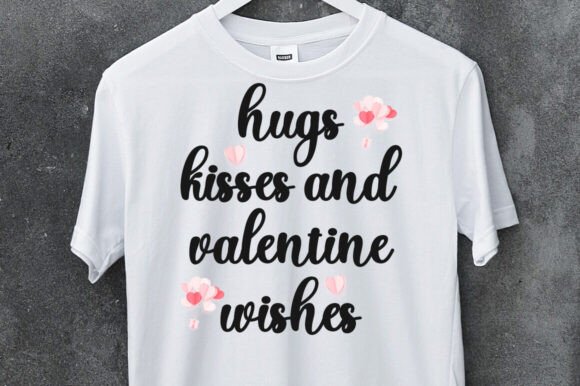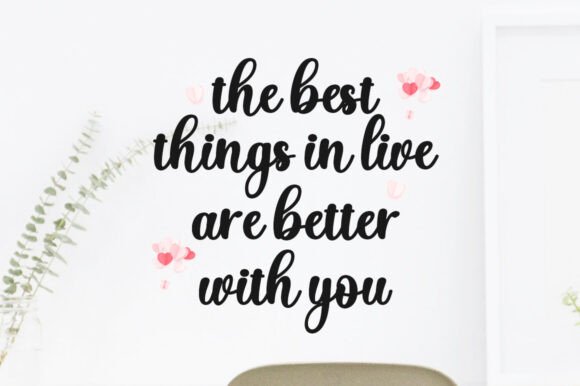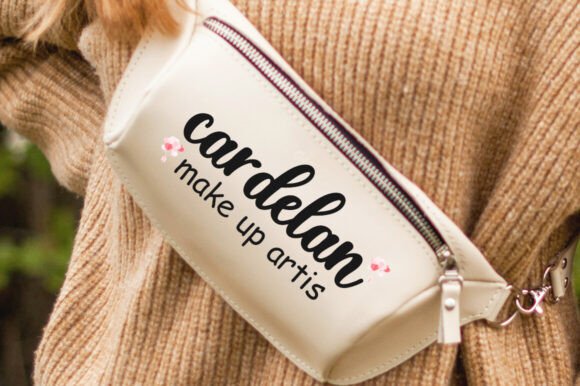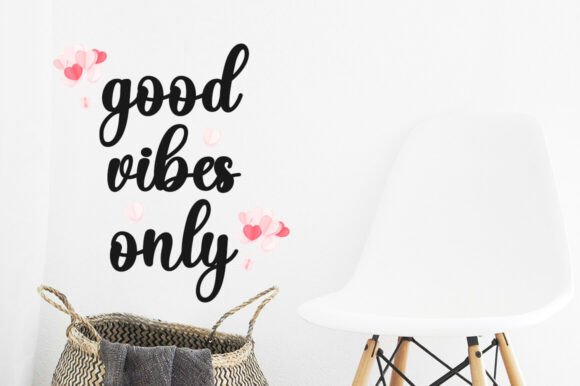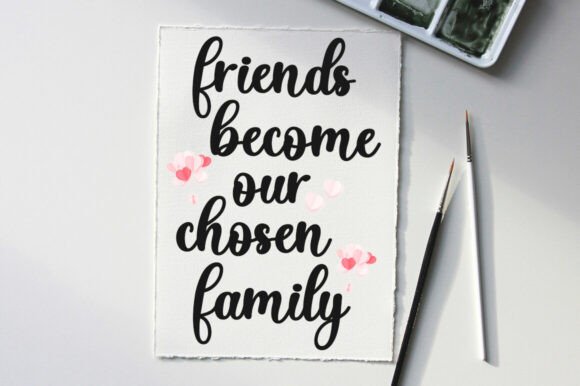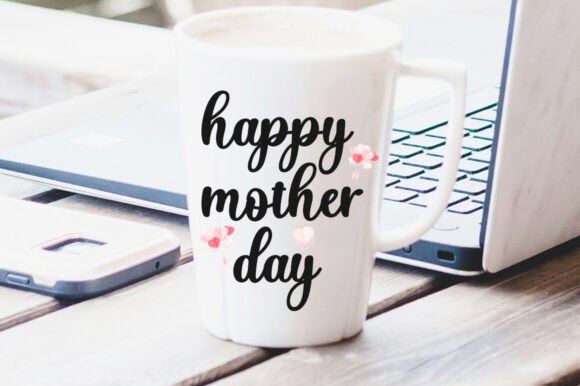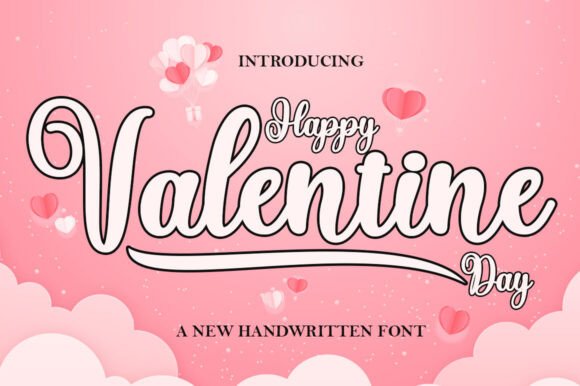
Happy Valentine Day Font: A Playfully Nostalgic Display Font for Your Design Needs
Are you looking for a font that can add a special retro touch to your design projects? Look no further than the Happy Valentine Day Font! This beautifully crafted display font is perfect for designers and crafters who want to bring a touch of nostalgia and playfulness to their work. In this article, we’ll take a closer look at the Happy Valentine Day Font, its features, and how you can use it to take your designs to the next level.
What is Happy Valentine Day Font?
Happy Valentine Day Font is a masterfully designed display font that is perfect for adding a retro touch to any design project. The font is playfully nostalgic, with a unique and charming style that is sure to capture the attention of your audience. Whether you’re working on a Valentine’s Day-themed project or just want to add a touch of whimsy to your design, this font is sure to deliver.
Key Features of Happy Valentine Day Font
So, what makes Happy Valentine Day Font so special? Here are just a few of its key features:
- Playfully Nostalgic Style: The Happy Valentine Day Font has a unique, retro-style that is sure to bring a smile to your face. Its playful design makes it perfect for projects that require a lighthearted and fun touch.
- Incredible Display Font: This font is designed to make a statement. Its bold, eye-catching design is perfect for headlines, titles, and other display text.
- Retro Touch: The Happy Valentine Day Font has a distinctly retro feel that is sure to add a touch of nostalgia to your designs.
How to Use Happy Valentine Day Font
So, how can you use the Happy Valentine Day Font in your design projects? Here are a few ideas to get you started:
- Valentine’s Day-themed Projects: This font is perfect for Valentine’s Day-themed projects, such as greeting cards, invitations, and social media graphics.
- Retro-style Posters: Add a touch of nostalgia to your posters with the Happy Valentine Day Font. Its retro-style design is perfect for creating eye-catching posters that will grab the attention of your audience.
- Whimsical Crafts: This font is also perfect for whimsical crafts, such as handmade cards, gift tags, and other paper crafts.
Why Choose Happy Valentine Day Font?
So, why should you choose the Happy Valentine Day Font for your design projects? Here are just a few reasons:
- Unique Style: This font has a unique, playfully nostalgic style that is sure to set your designs apart from the crowd.
- High-quality Design: The Happy Valentine Day Font is masterfully designed to deliver high-quality results.
| Font Name | Happy Valentine Day Font |
| Author | AF Type |
In conclusion, the Happy Valentine Day Font is a playfully nostalgic display font that is perfect for designers and crafters who want to add a special retro touch to their design projects. With its unique style, incredible display font, and ease of use, this font is sure to become a true favorite in your design arsenal. So why wait? Download the Happy Valentine Day Font today and start creating amazing designs that will capture the attention of your audience!
Whether you’re working on a Valentine’s Day-themed project or just want to add a touch of whimsy to your design, the Happy Valentine Day Font is the perfect choice. Its retro-style design, easy-to-use interface, and high-quality results make it a must-have for any designer or crafter looking to take their designs to the next level.